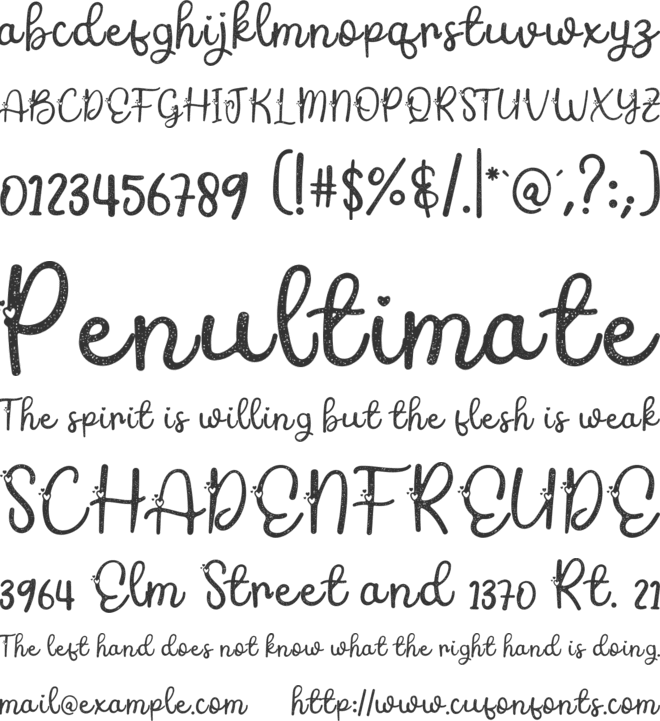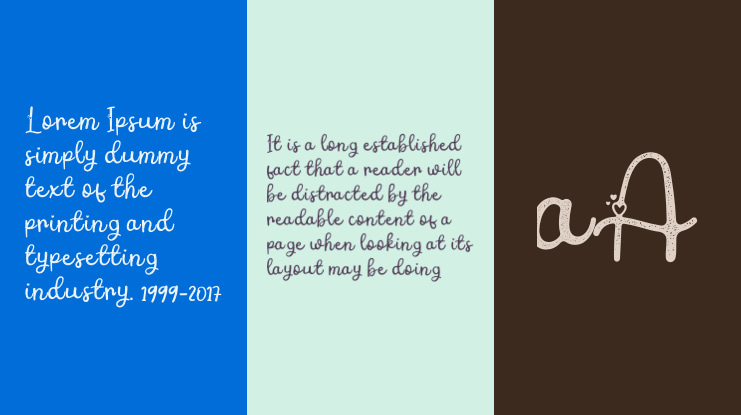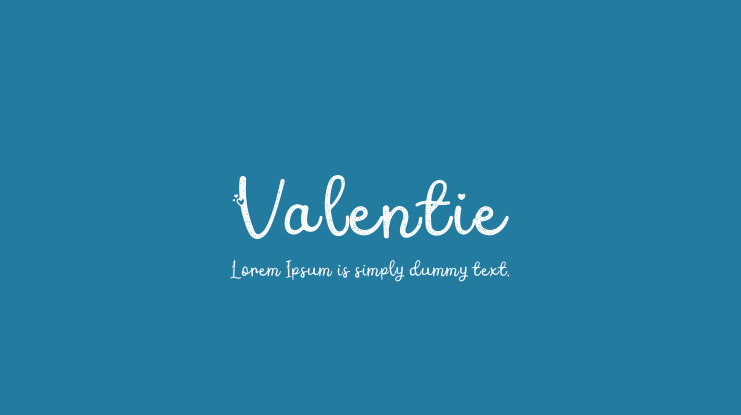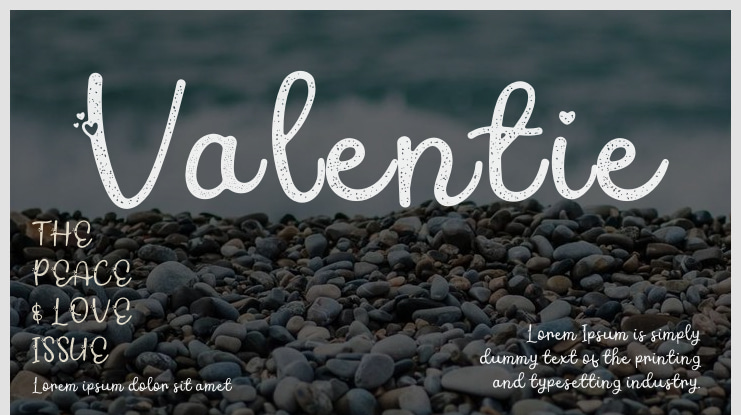
Valentie Font
Valentie is a lovely and romantic script font that dances with the rhythm of love. With graceful letterforms and a touch of sophistication, it adds an enchanting and timeless elegance to your designs. Ideal for projects seeking a tender and romantic aesthetic, Valentie captivates with its heartfelt and expressive flair.